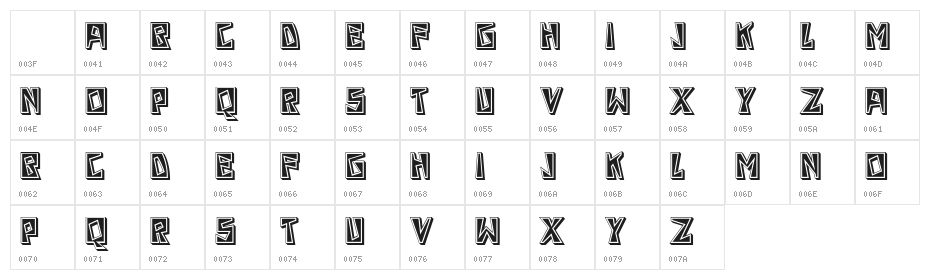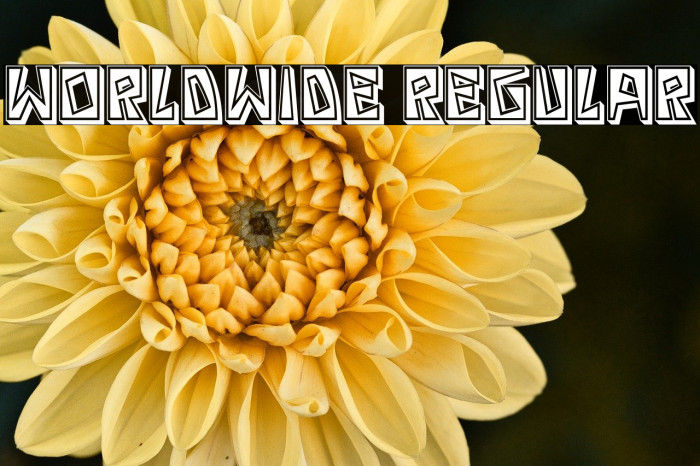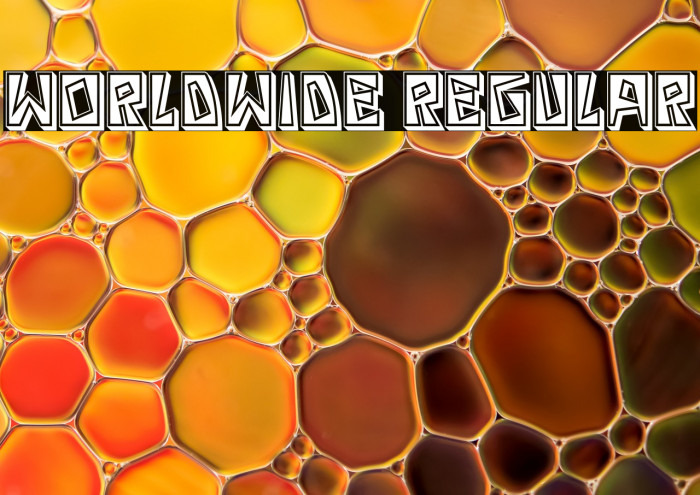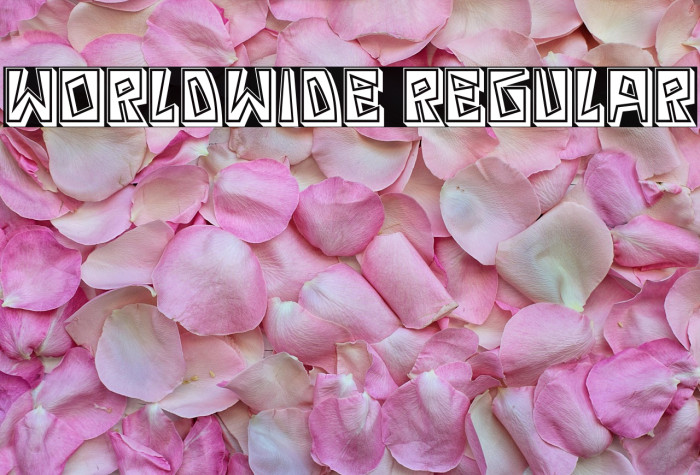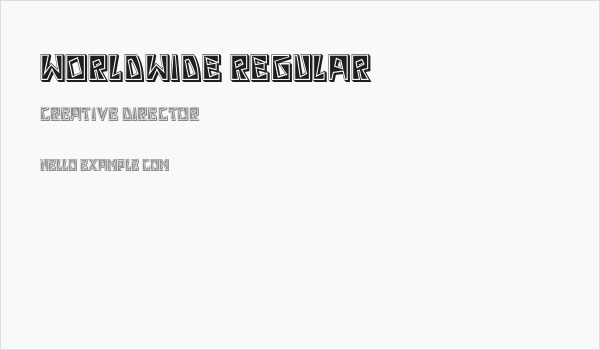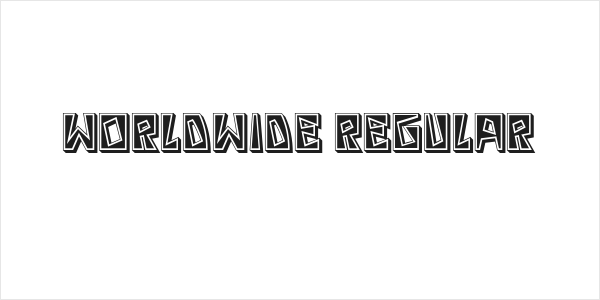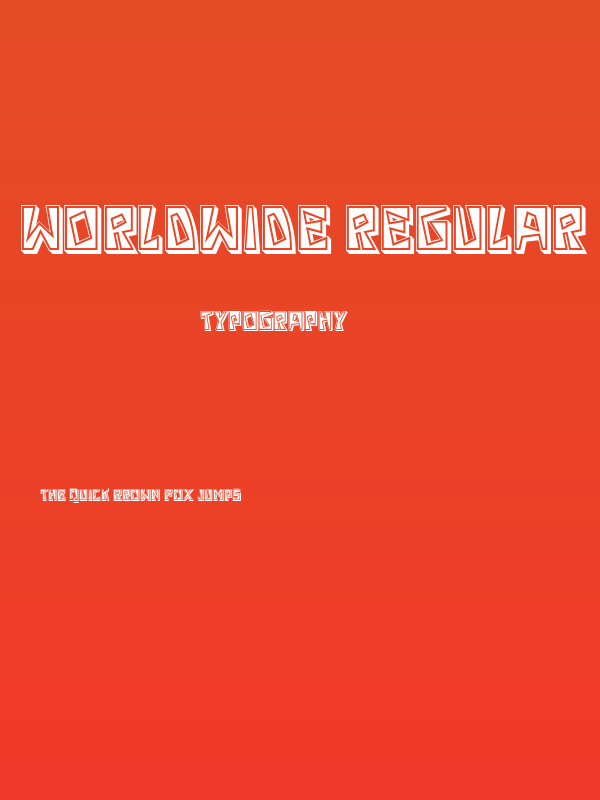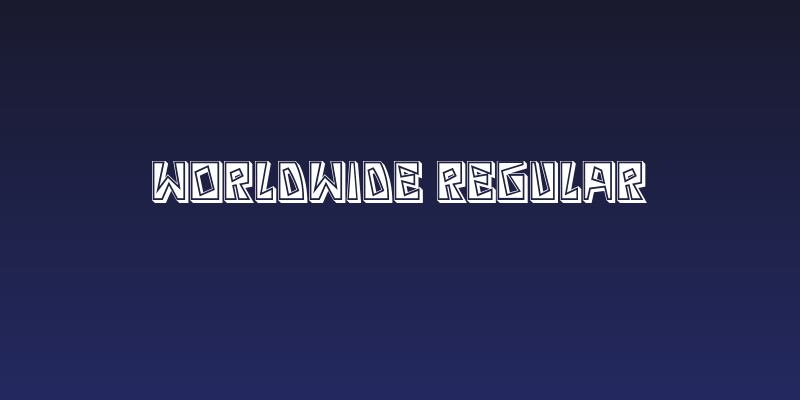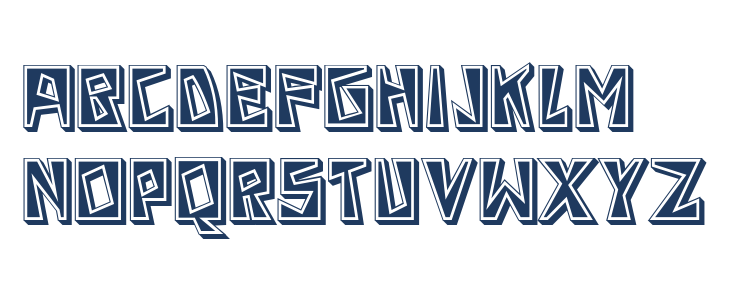
Worldwide Regular Font
Worldwide Regular Description
This font features a bold, dynamic style with a three-dimensional effect, created by its thick outlines and angular shapes. The letters are uppercase and have a geometric design, giving them a modern and edgy appearance. The inner lines add depth and a sense of movement, making it stand out in any design. The font's unique structure makes it ideal for attention-grabbing headlines or titles. Its boldness and distinctiveness make it unsuitable for body text but perfect for creative projects that require a strong visual impact.
| Proposed Projects | Ideal for posters, logos, branding, and any project needing a bold, modern touch. |